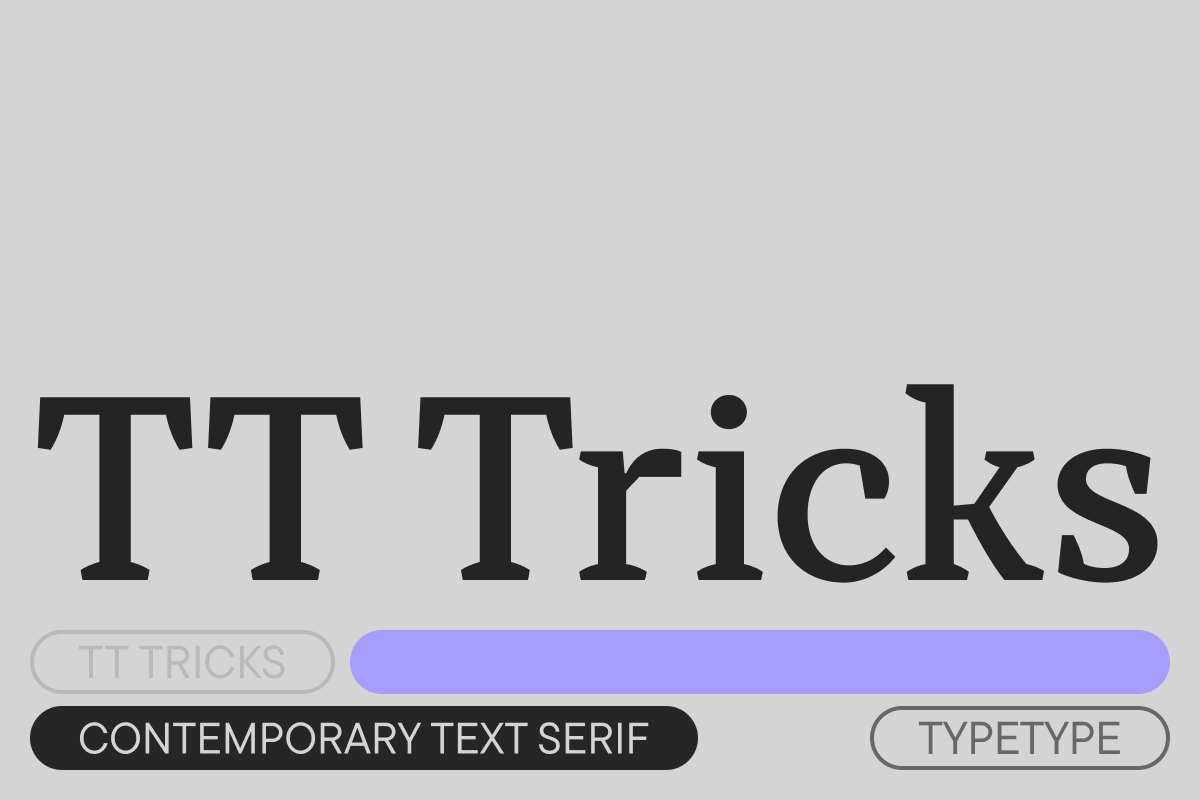
TT Tricks Thin Italic
TT Tricks is a modern text serif with a design reflecting the style of Transitional serifs. This font has a calm, elegant, and moderately stern character. It stands out for its relatively low stroke contrast, large serifs, narrowed proportions, and slightly squared forms of round characters. All these visual aspects give the font a distinctly formal tone. TT Tricks is a genuine classic: it looks modest but highly relevant. Due to this appearance, the font has an extensive application range.